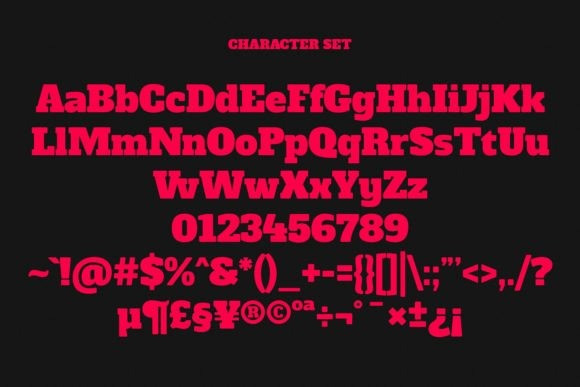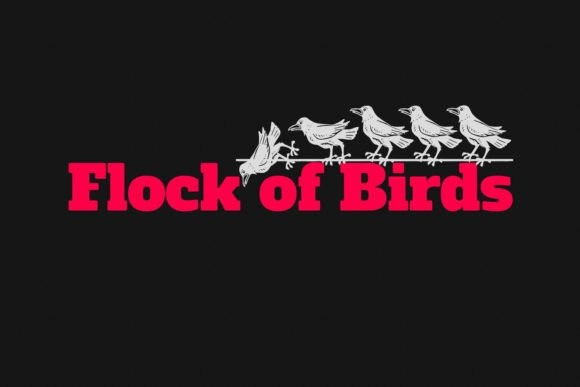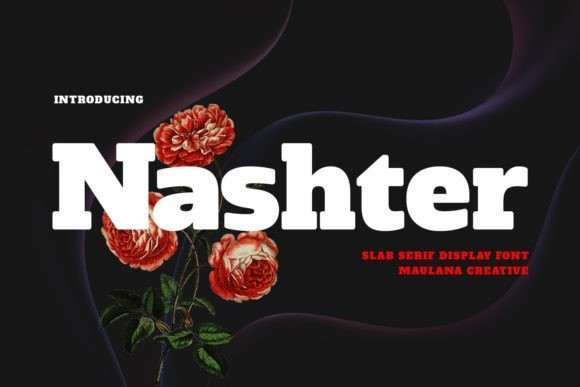
Nashter Font
Nashter Font, is a bold and trendy slab serif font that exudes confidence and modernity. With its strong, thick lines and angular serifs, it’s perfect for grabbing attention and making a statement. The font’s versatility allows it to work for both professional and creative projects, making it a go-to choice for designers looking for a strong and stylish typeface.
Classification: Display Fonts, Slab Serif Fonts